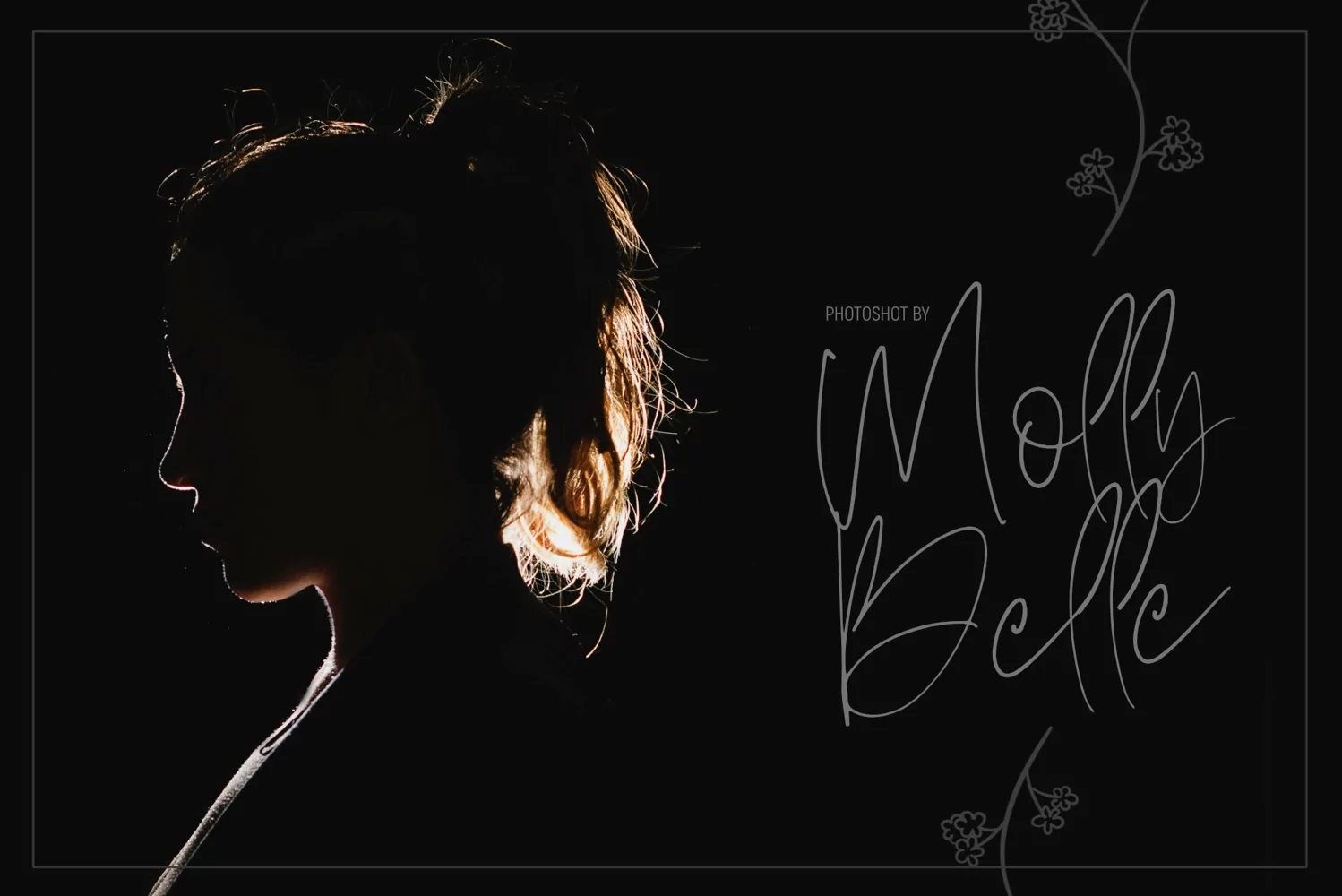
Armthadore
**Armthedore Script Font**
This pair was inspired by the retro poster design that i saw on some coffee shop, It was crafted by hand specially to add natural handmade feeling in its brand identity than i make it clean with pentool.
**Opentype features**
Armthedore Script font has 172 character set included
Armthedore Script Font is very good looking in logo, labels, t-shirt prints, product packaging, invitations, advertising and others.